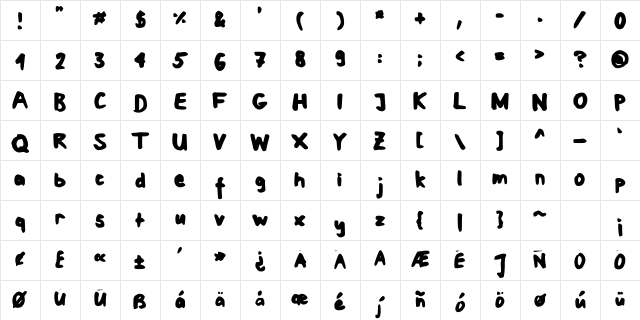
Mat's Fat Handwriting Medium Free Font
Mat's Fat Handwriting Medium
Design Context for Mat's Fat Handwriting
Mat's Fat Handwriting flows with the natural rhythm of handwritten lettering, making it ideal for designs that call for warmth and personal expression.
Font Pairing: Combine Mat's Fat Handwriting with a simple geometric sans for maximum contrast - the tension between flowing curves and clean structure is a classic typographic pairing.
Pro Tip: Use Mat's Fat Handwriting for short runs of text - names, titles, or taglines. Extended body copy in script faces tires the eye quickly.